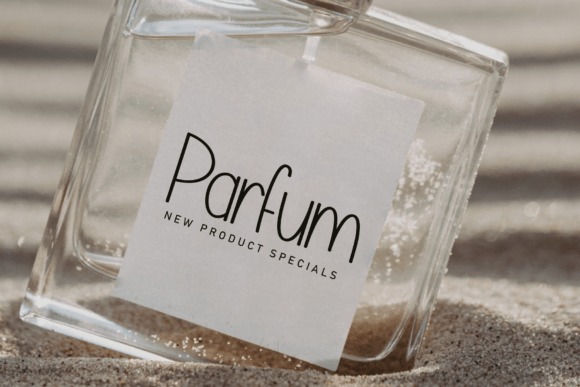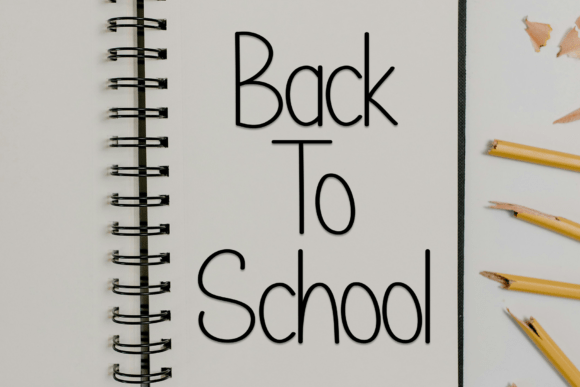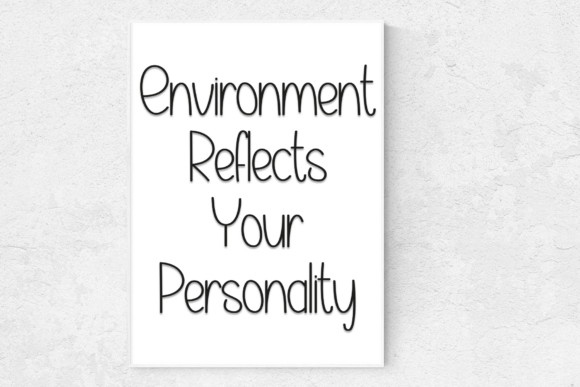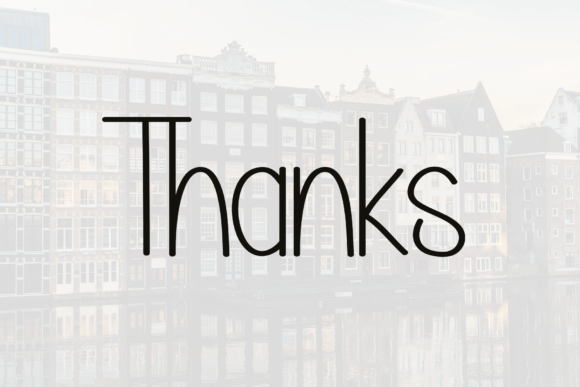
Introducing Cheerful September Font: The Perfect Handwritten Marker Font for Your Designs
Are you looking for a font that exudes a relaxed and sporty vibe, perfect for adding a touch of elegance and casualness to your designs? Look no further than Cheerful September Font, a beautiful handwritten font that looks like it was drawn with a marker.
What is Cheerful September Font?
Cheerful September Font is a unique and stylish handwritten font that is perfect for designers and crafters who want to add a personal touch to their work. With its relaxed and sporty feel, this font is ideal for a wide range of design projects, from branding and logos to wedding supplies, greeting cards, fashion lookbooks, and marketing promotions.
Key Features of Cheerful September Font
- Handwritten with a marker feel: Cheerful September Font has a distinctive handwritten look that makes it stand out from other fonts. Its marker-like texture gives it a casual and relaxed feel that’s perfect for designs that need a personal touch.
- Relaxed and sporty vibe: This font has a laid-back, sporty feel that’s perfect for designs that need to convey a sense of fun and approachability.
- Luxurious and elegant yet casual: Despite its casual feel, Cheerful September Font has an undeniable air of elegance and sophistication, making it perfect for designs that need to look high-end.
- Versatile: This font is suitable for a wide range of design projects, from branding and logos to wedding supplies, greeting cards, fashion lookbooks, and marketing promotions.
Uses for Cheerful September Font
So, what can you use Cheerful September Font for? The possibilities are endless! Here are a few ideas to get you started:
- Branding and logos: Use Cheerful September Font to create a unique and memorable brand identity that stands out from the crowd.
- Wedding supplies: Add a touch of elegance and whimsy to your wedding designs, from invitations to stationery.
- Greeting cards: Create beautiful and heartfelt greeting cards that will make your recipients feel special.
- Fashion lookbooks: Use Cheerful September Font to add a stylish and sophisticated touch to your fashion designs.
- Marketing promotions: Make your marketing materials stand out with a font that’s both elegant and attention-grabbing.
Why Choose Cheerful September Font?
So, why should you choose Cheerful September Font for your design projects? Here are just a few reasons:
- Unique and distinctive: This font has a one-of-a-kind look that’s sure to make your designs stand out.
- Easy to read: Despite its handwritten feel, Cheerful September Font is easy to read and understand, making it perfect for designs that need to communicate a message.
- High-quality: This font is designed to the highest standards, ensuring that it will look great in any design.